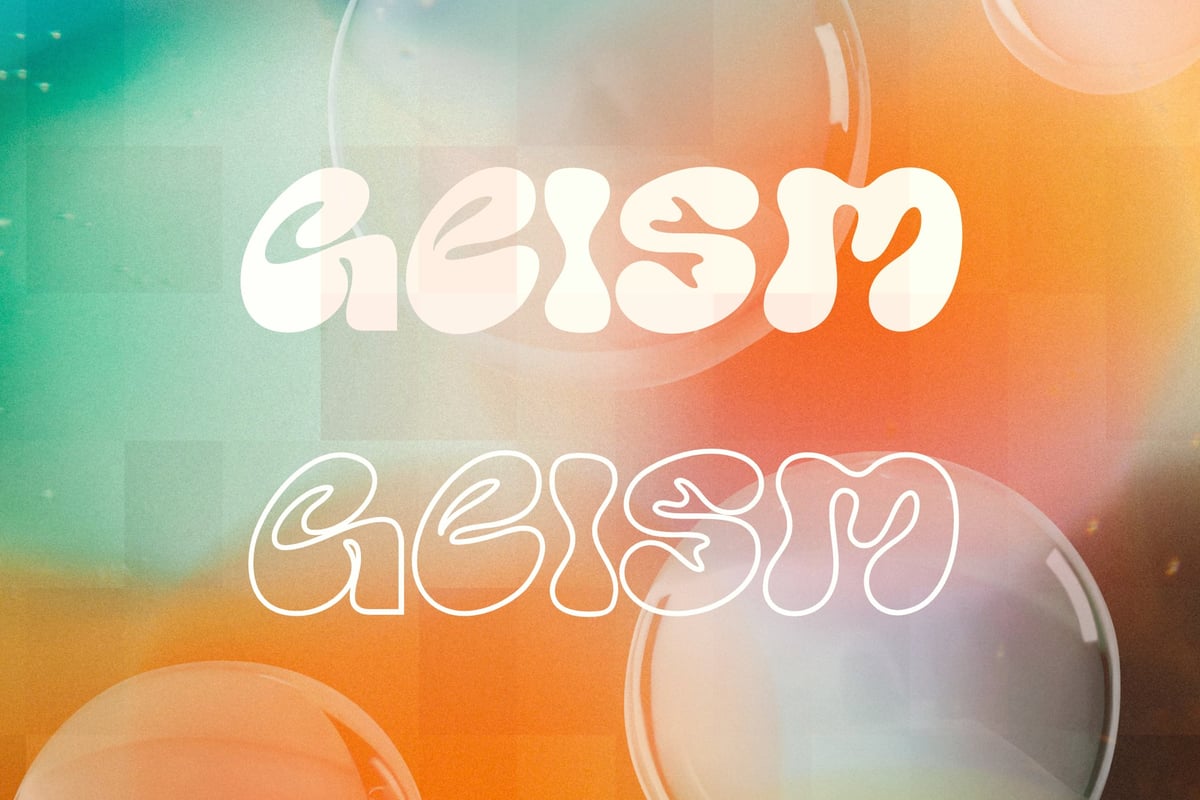
Bubble Font Geism
Meet Geism: the bubble display font that perfectly blends 70s groovy vibes with Y2K freshness. This wavy display typeface features soft, blobby curves that create a retro yet contemporary aesthetic. The organic shapes and flowing design make it ideal for skincare and beauty packaging, eye-catching posters, festival artwork, merchandise designs, distinctive logos, and bold social media headlines. Geism comes in both Solid and Outline versions, giving you the flexibility to layer styles, mix weigh...